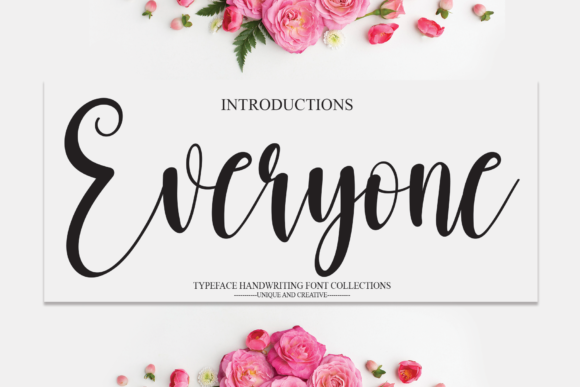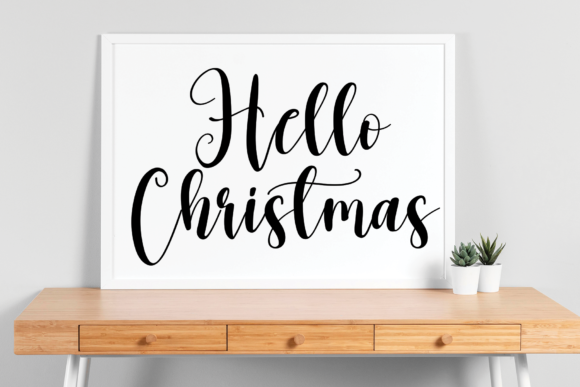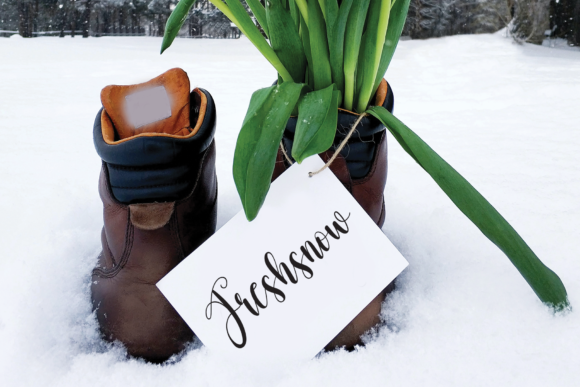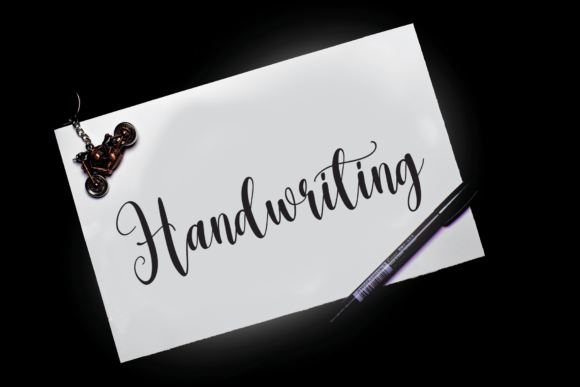
Everyone Font
About Everyone Font
Everyone is a splendid handwritten font that looks authentic, relaxed, and very stylish. This stunning typeface is perfect for wall displays, wedding invitations, social media post logos, advertisements, product packaging, product designs, labels, photography, watermarks, invitations, stationery, and any project that requires a handwritten taste.